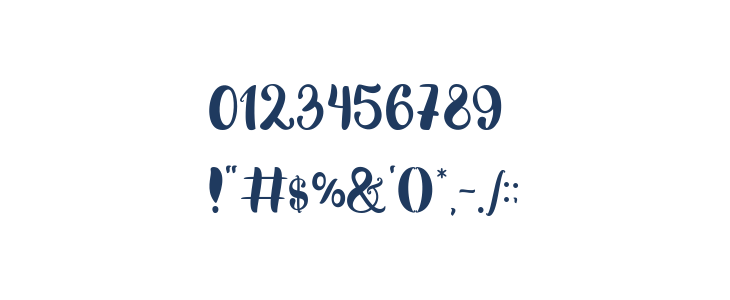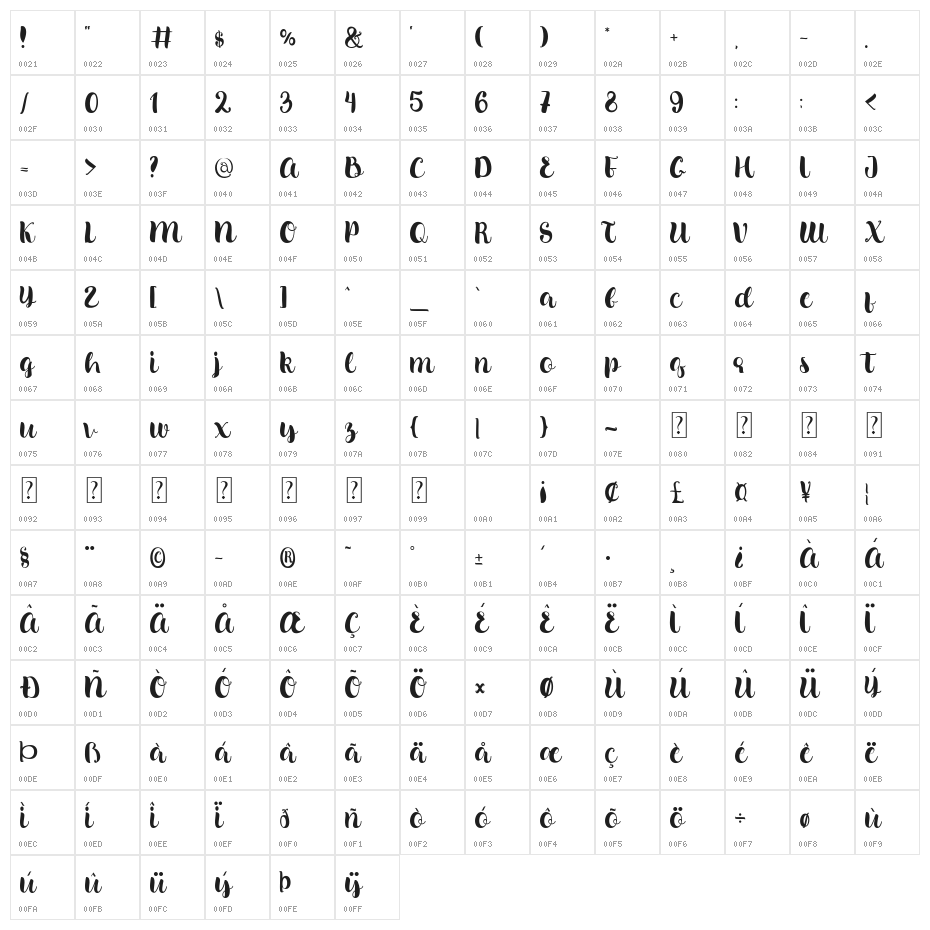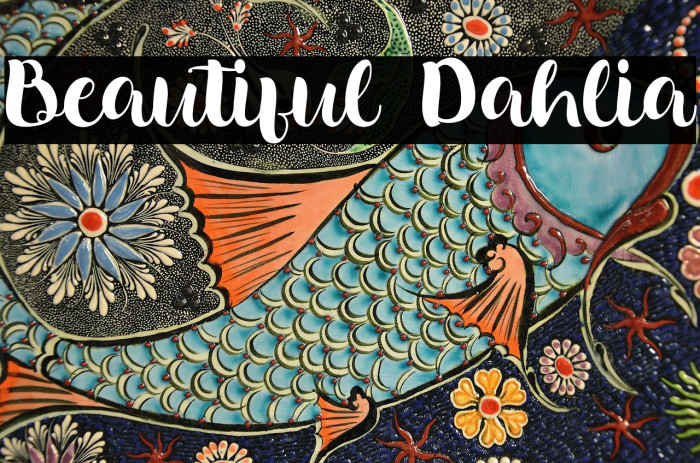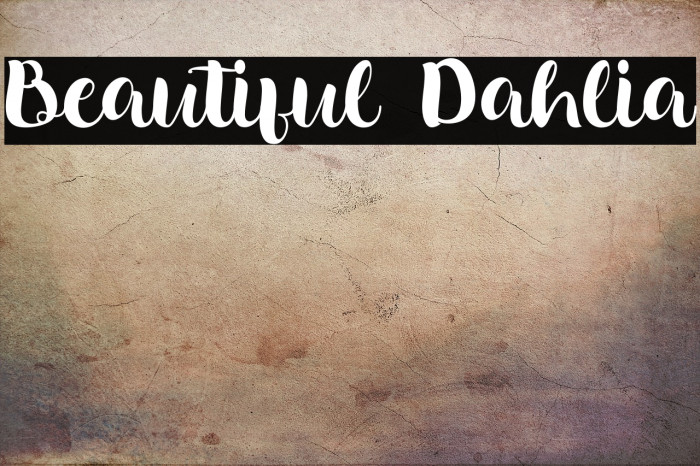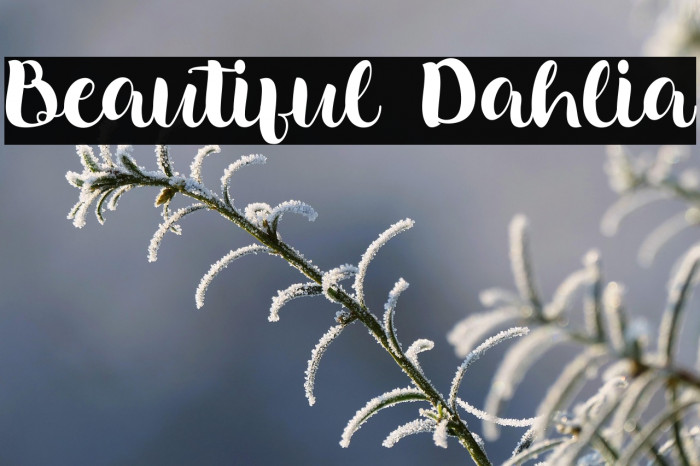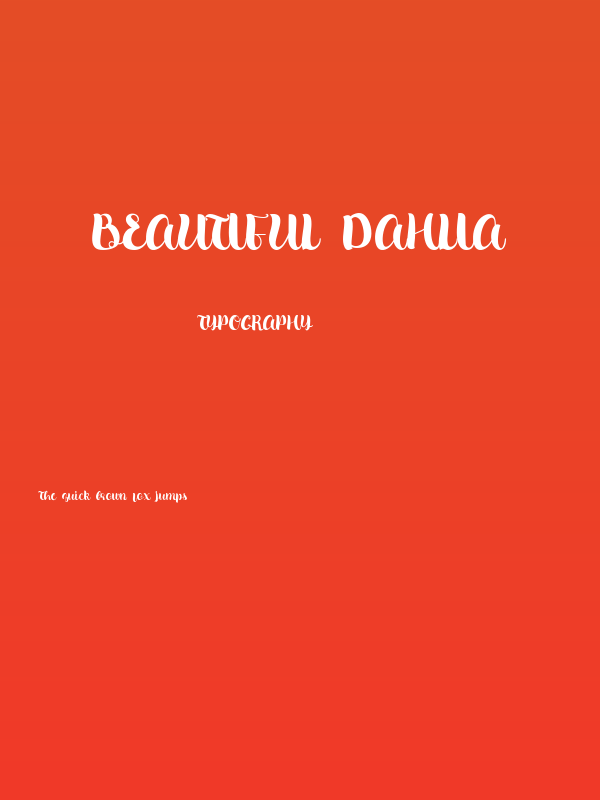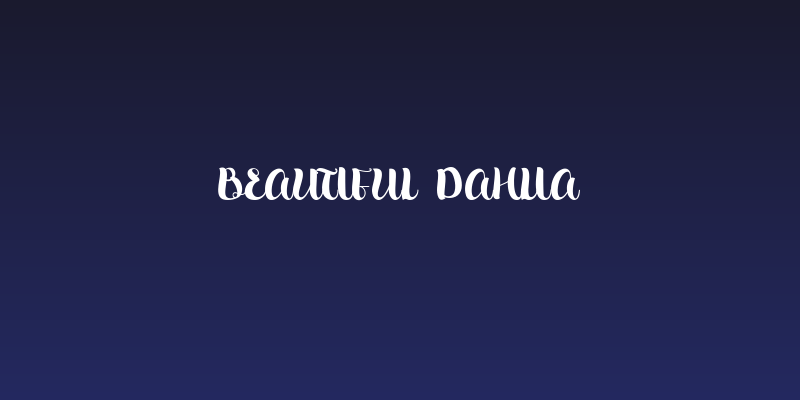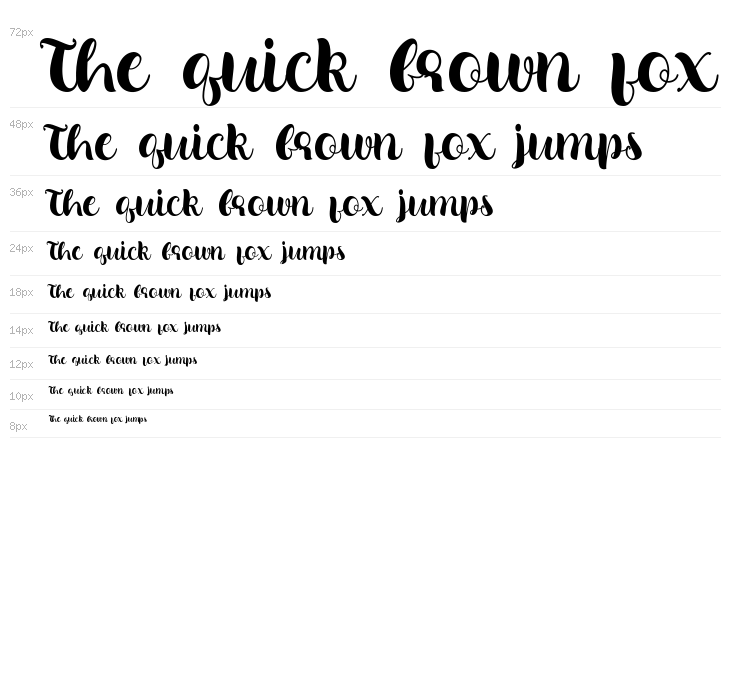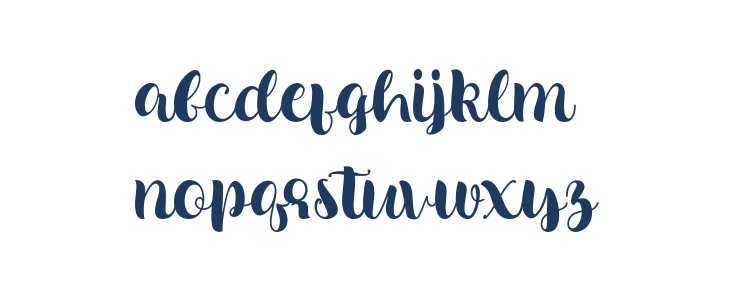
Beautiful Dahlia Font
Beautiful Dahlia Description
This font features a bold and expressive script style with a flowing, cursive design. The characters are interconnected, creating a seamless and elegant appearance. The uppercase letters are ornate and slightly larger, while the lowercase letters maintain a consistent flow with decorative flourishes. The numerals are bold and match the overall style, making them stand out. Special characters are included, adding versatility to the font. The overall look is both playful and sophisticated, making it suitable for a variety of creative projects.